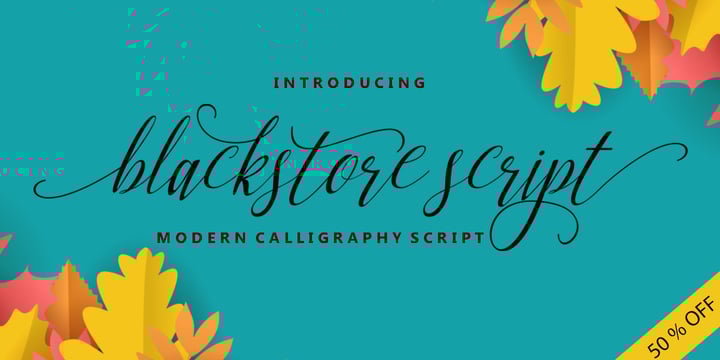
The Legendary Font Bundle
This bundle includes a variety of font styles such as calligraphy, handwritten, and many more with hundreds of glyphs, including ligatures, and swashes included. These fonts have international language support and are PUA encoded. They are also compatible with Silhouette Studio, and Cricut Design Space.